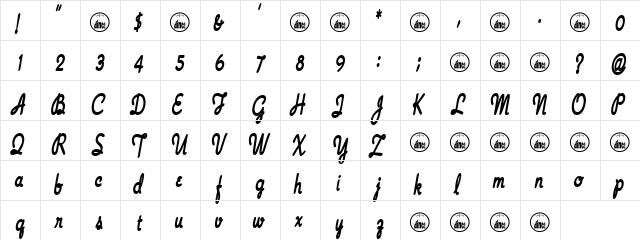
Tour de Lance Regular
Design Context for Tour de Lance Typeface
Tour de Lance is a composed and adaptable typeface that performs quietly and consistently across a wide range of design contexts.